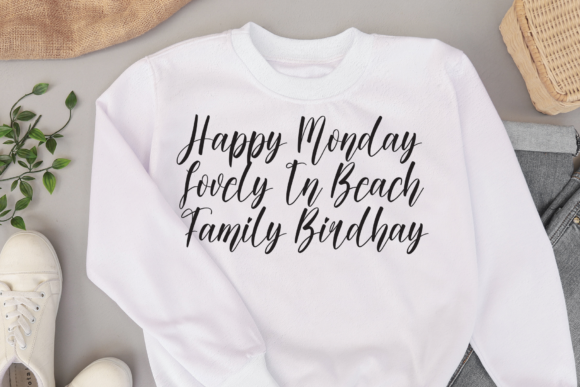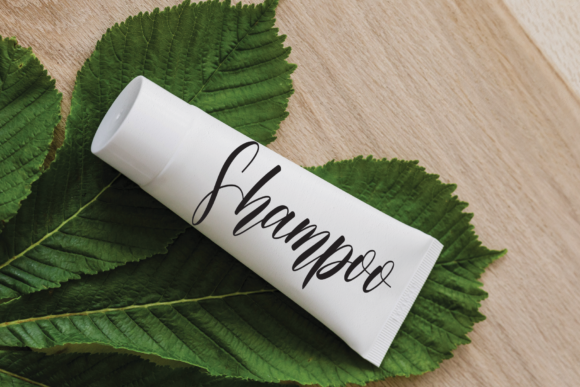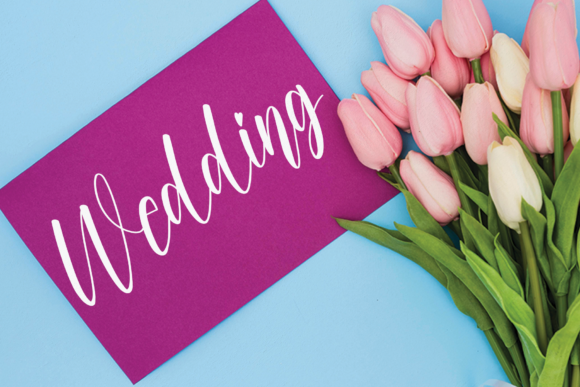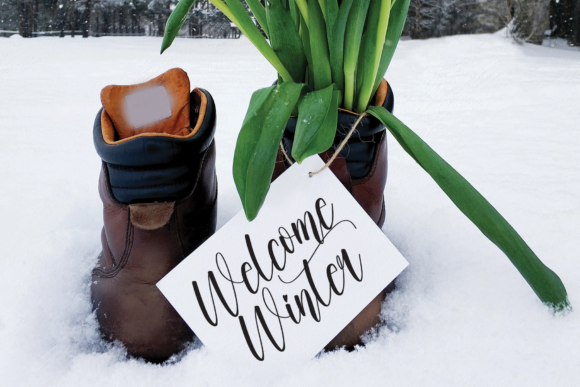
Introducing Beautiful Starlight Font: Elevate Your Designs with Elegance
Are you a designer or crafter looking for a font that can add a touch of sophistication and whimsy to your creative projects? Look no further than Beautiful Starlight Font. This delicate, elegant, and flowing handwritten font is sure to capture your heart and take your designs to the next level.
The Beauty of Beautiful Starlight Font
Beautiful Starlight Font is a stunning example of a well-crafted handwritten font. Its characters are beautifully designed, with a delicate balance of curves and lines that give it a sense of fluidity and movement. The font’s elegance is evident in its refined and precise strokes, making it perfect for a wide range of design applications.
One of the standout features of Beautiful Starlight Font is its versatility. Its well-balanced characters make it an excellent match for a wide pool of designs, from modern and minimalist to vintage and ornate. Whether you’re creating a logo, branding materials, or craft projects, this font is sure to complement your design and add a touch of sophistication.
Beautiful Starlight Font is the perfect addition to your design arsenal, offering endless creative possibilities. Imagine adding it to your:
- Logos and branding materials for a touch of elegance
- Stationery and greeting cards for a personal touch
- Craft projects, such as scrapbooking and DIY crafts, for a unique look
- Web designs and digital products for a professional finish
Why Choose Beautiful Starlight Font?
So, why should you choose Beautiful Starlight Font for your design needs? Here are just a few reasons:
- Elegance and sophistication: Add a touch of refinement to your designs with this beautiful handwritten font.
- Versatility: Use it for a wide range of design applications, from logos to craft projects.
- Easy to read: The font’s clear and precise strokes make it easy to read, even at small sizes.
- Unique and creative: Stand out from the crowd with this distinctive and eye-catching font.
Tips for Using Beautiful Starlight Font
To get the most out of Beautiful Starlight Font, here are a few tips:
- Pair it with contrasting fonts: Combine Beautiful Starlight Font with bold or sans-serif fonts for a striking contrast.
- Experiment with colors: Try different colors and textures to add depth and interest to your designs.
- Play with sizes: Use the font at different sizes to create visual hierarchy and emphasis.
Beautiful Starlight Font is a stunning addition to any designer’s or crafter’s toolkit. Its elegance, versatility, and creative possibilities make it the perfect choice for a wide range of design applications. Whether you’re looking to add a touch of sophistication to your logos, branding materials, or craft projects, this beautiful handwritten font is sure to impress. So why wait? Download Beautiful Starlight Font today and watch your designs come alive!